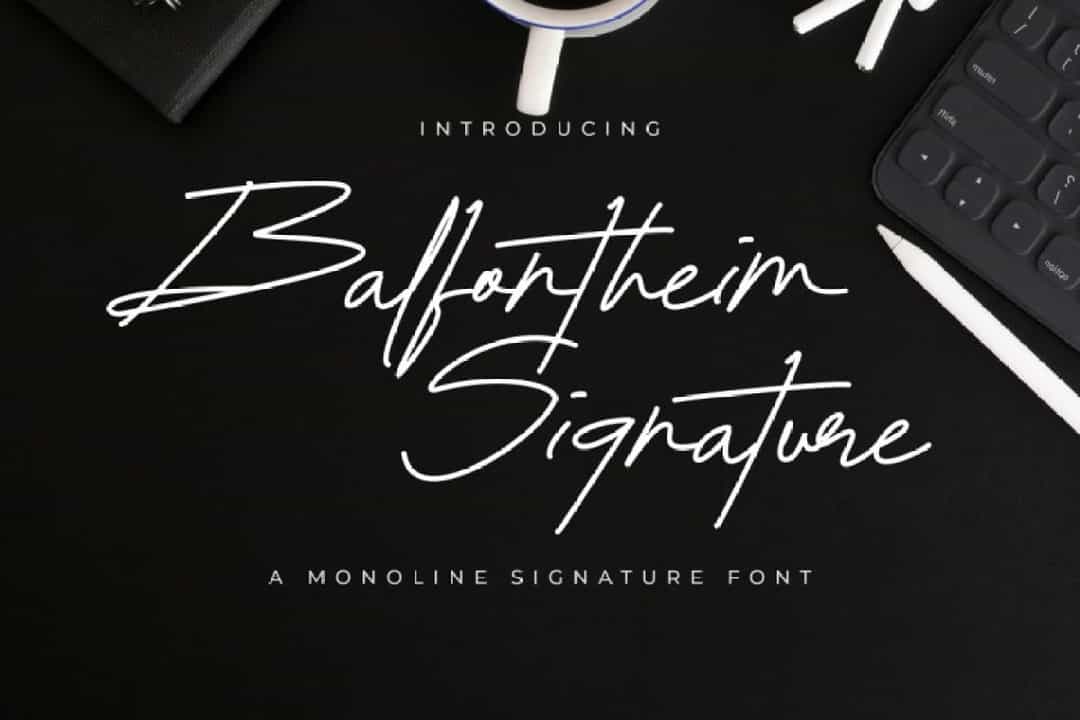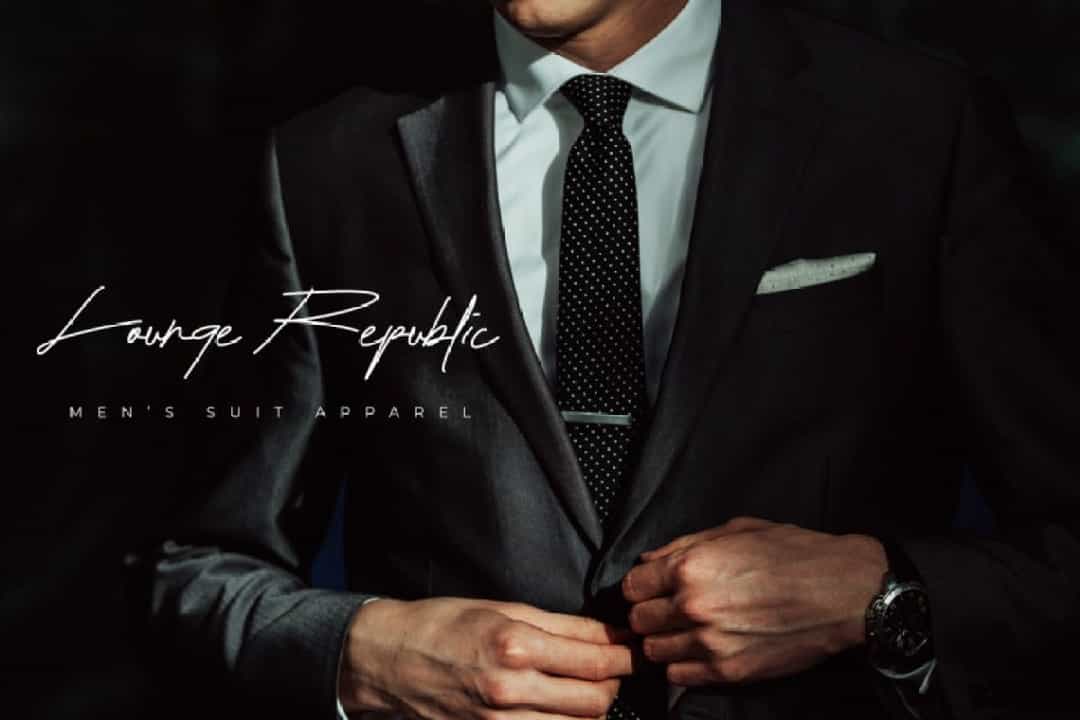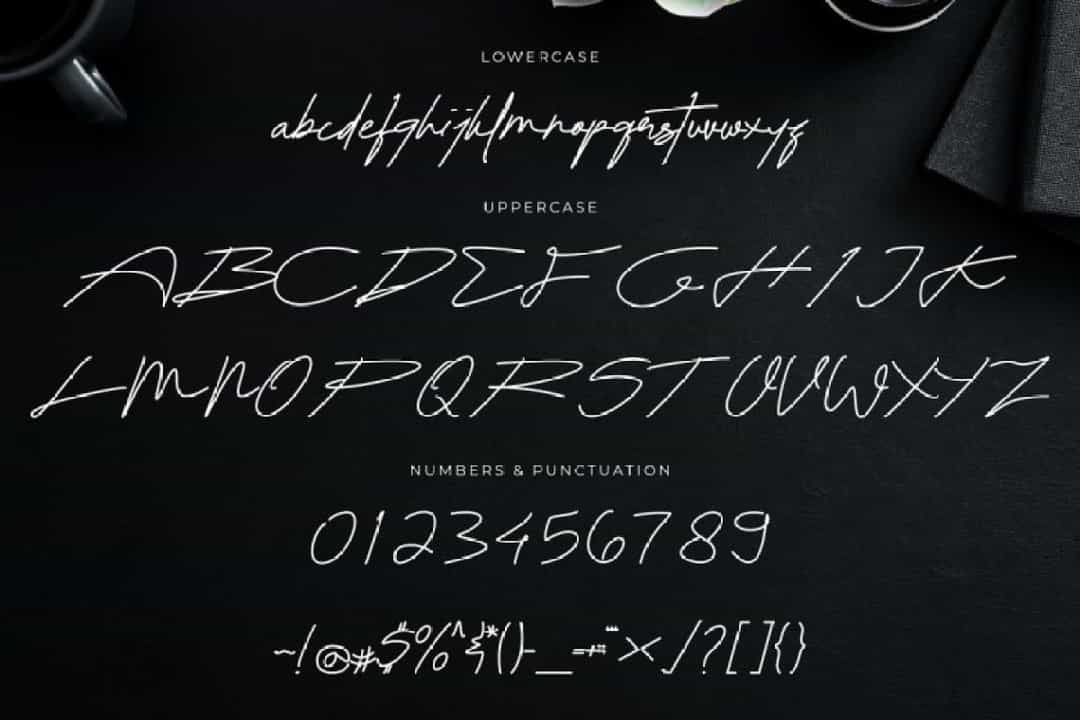
Balfontheim is a quite refined and beautiful script font. Including all the small letters, international character and punctuation marks, numbers, and even ligatures this font is great for designing logos, quotations, branding and for any other purpose you can think of! The fonts are exquisite that you are free to incorporate in your designs and see them come to life!